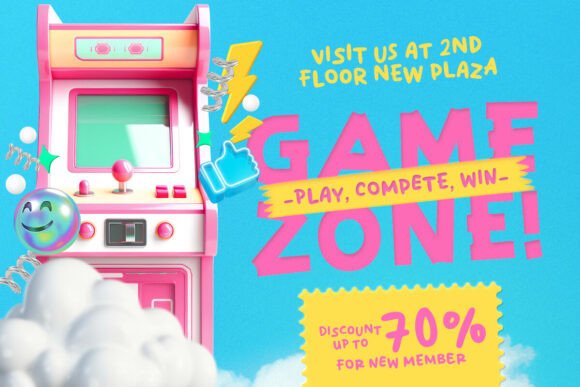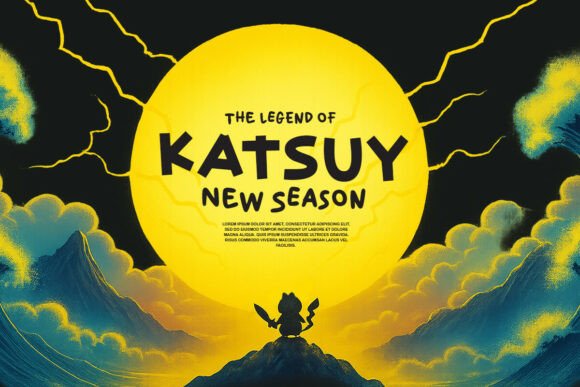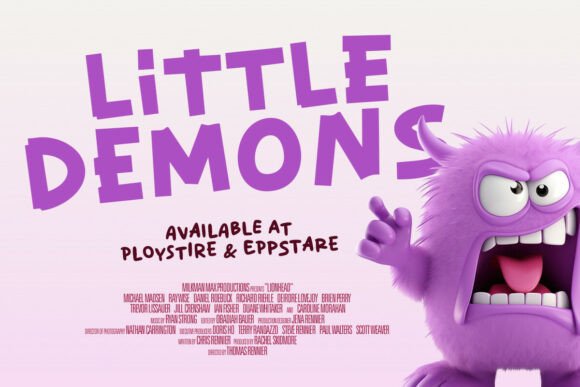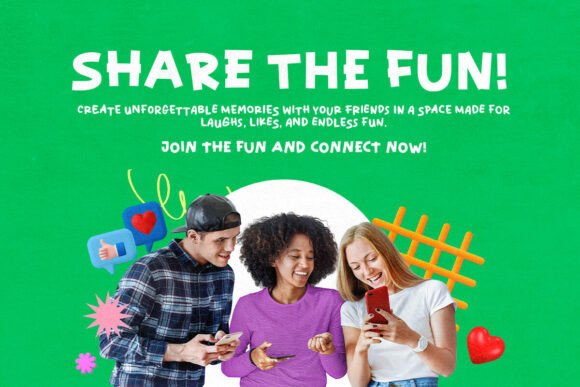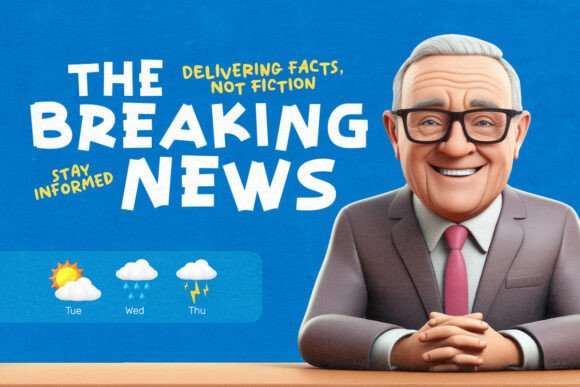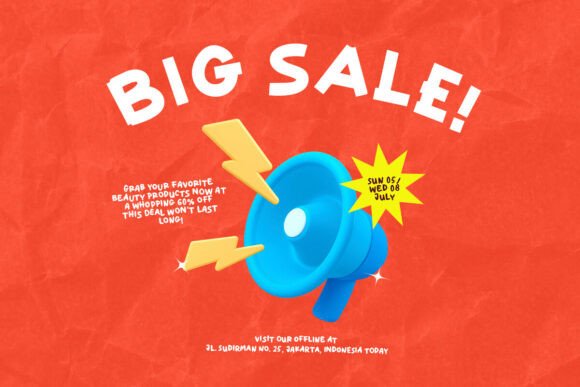
Introducing Gamer World Font: A Fun and Playful Font Duo for Designers
Have you ever been in the middle of a design project, and suddenly, you’re stuck on finding the perfect font? I recall a recent experience where I was working on a branding project for a gaming app, and I just couldn’t find a font that captured the playful and fun vibe I was going for. That’s when I stumbled upon the Gamer World font duo, and it instantly solved my design dilemma! In this article, I’ll share my excitement about this font duo, and we’ll dive into its features, usage, and some helpful tips.
A Personal Review of Gamer World Font
What I Love About Gamer World Font ✨
- ✅ Versatility: Gamer World is a font duo that includes two fun fonts – a sharp sans and a rounded handwritten font. You can use them standalone or combine both for a unique look.
- ✅ Multi-language support: This font supports multiple languages, making it perfect for global design projects.
- ✅ OpenType features: Gamer World font comes with OpenType features, including glyphs and stylistic alternates, which allow for creative freedom and flexibility.
- ⚠️ Limited use cases for the handwritten font: While the handwritten font is beautiful, it might not be suitable for very formal or professional designs.
- ⚠️ No italic version: Some users might miss an italic version of the font, but the sharp sans font provides a nice contrast to the rounded handwritten font.
The Gamer World font duo was designed with gamers and creatives in mind. The designer aimed to create a font that captures the fun and playful spirit of gaming, while also providing a versatile and modern look. The sharp sans font is perfect for headings and titles, while the rounded handwritten font adds a touch of personality and whimsy.
Q: What is the Gamer World font duo?
A: The Gamer World font duo is a collection of two fun fonts – a sharp sans and a rounded handwritten font – designed for gaming, apps, and creative projects.
Q: Does Gamer World font support OpenType features?
A: Yes, the Gamer World font duo comes with OpenType features, including glyphs and stylistic alternates.